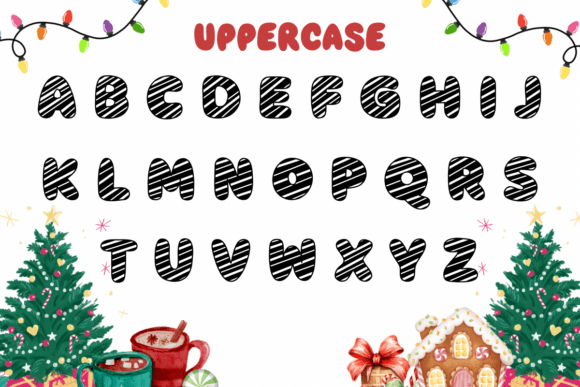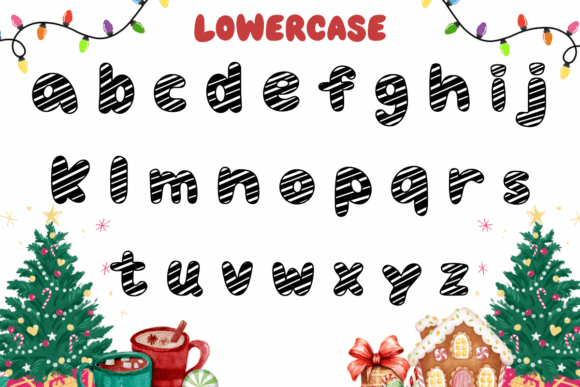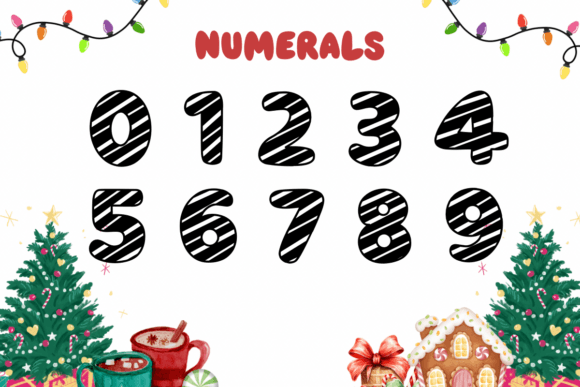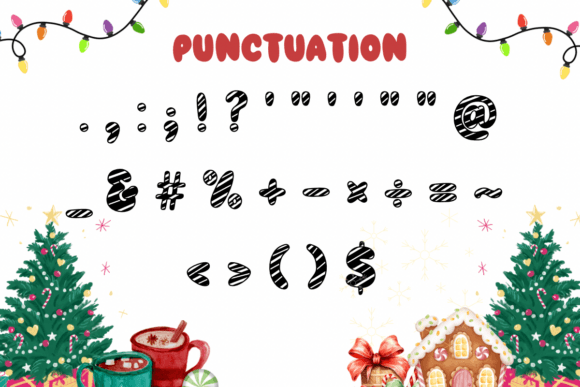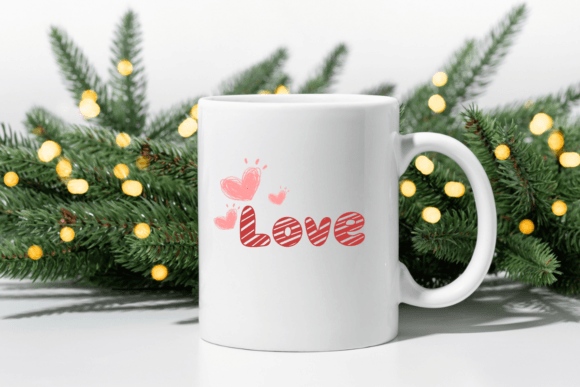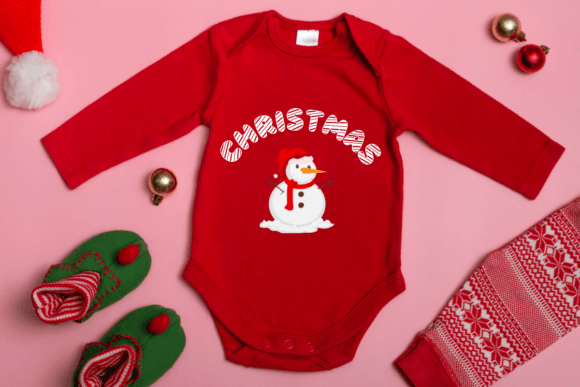
Introducing Christmas Candy Font: The Sweetest Addition to Your Designs
Are you looking for a font that embodies the spirit of joy, youth, and festivity? Look no further than the Christmas Candy Font! This cool, incredibly cute, and fun display font is perfect for adding a touch of whimsy to your party invitations, gatherings, and designs. In this article, we’ll dive into the world of Christmas Candy Font and explore its features, uses, and benefits for designers and crafters.
What is Christmas Candy Font?
Christmas Candy Font is a display font designed to capture the essence of fun, playfulness, and celebration. Its unique and quirky design makes it perfect for creating eye-catching titles, headings, and text elements that demand attention. The font’s sweet and charming appearance is reminiscent of childhood treats, making it an excellent choice for designs that require a touch of nostalgia and innocence.
Key Features of Christmas Candy Font
- Cute and Fun Design: Christmas Candy Font boasts a distinctive and adorable design that is sure to bring a smile to anyone’s face.
- Display Font: This font is specifically designed for display purposes, making it perfect for titles, headings, and text elements that need to stand out.
- Youthful and Joyful: The font’s playful and lively design makes it an excellent choice for designs that require a youthful and joyful touch.
- Easy to Read: Despite its playful design, Christmas Candy Font is easy to read, making it suitable for use in a variety of design applications.
Uses of Christmas Candy Font
Christmas Candy Font is a versatile font that can be used in a wide range of design applications, including:
- Party Invitations: Add a touch of fun and whimsy to your party invitations with Christmas Candy Font.
- Gatherings and Events: Use the font to create eye-catching titles and headings for event flyers, posters, and social media promotions.
- Crafting and DIY Projects: Add a personal touch to your crafting and DIY projects with Christmas Candy Font.
- Digital Designs: Use the font in digital designs, such as social media graphics, blog posts, and website headers.
Benefits of Using Christmas Candy Font
So, why choose Christmas Candy Font for your designs? Here are just a few benefits:
- Instant Attention: The font’s unique and playful design is sure to grab attention and draw the eye.
- Emotional Connection: Christmas Candy Font’s sweet and charming appearance creates an emotional connection with the viewer, making your design more relatable and engaging.
- Versatility: The font’s versatility makes it suitable for use in a wide range of design applications.
Tips for Using Christmas Candy Font
To get the most out of Christmas Candy Font, here are a few tips:
- Use it Sparingly: Use the font sparingly to avoid overwhelming the viewer.
- Pair it with Other Fonts: Pair Christmas Candy Font with other fonts to create visual interest and contrast.
- Experiment with Colors: Experiment with different colors to find the perfect combination that complements the font.
In conclusion, Christmas Candy Font is a fun, cute, and playful display font that is perfect for adding a touch of joy and whimsy to your designs. Its unique and quirky design makes it an excellent choice for party invitations, gatherings, and digital designs. With its ease of use, versatility, and emotional connection, Christmas Candy Font is sure to become a favorite among designers and crafters. So, go ahead and indulge in this sweet font – your designs will thank you!